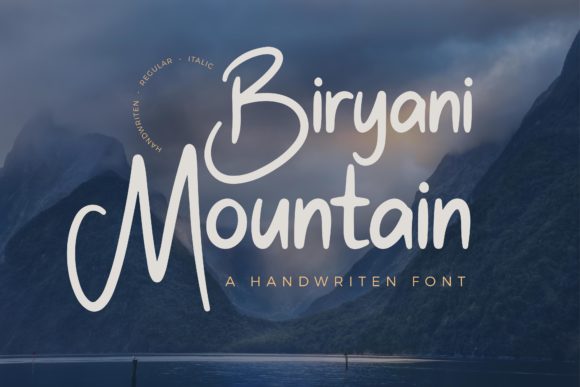
Biryani Mountain Font: The Ultimate Handwritten Font for Designers
Are you tired of using the same old fonts in your designs? Look no further than the Biryani Mountain Font! This beautiful and flexible handwritten font is perfect for a wide variety of designs, from branding and advertising to crafting and DIY projects. In this article, we’ll dive into the features and benefits of Biryani Mountain Font and explore why it’s becoming a favorite among designers and crafters alike.
What is Biryani Mountain Font?
Biryani Mountain Font is a handwritten font that boasts a neat and simple style, making it incredibly versatile. Its clean lines and elegant curves make it perfect for designs that require a touch of sophistication and elegance. Whether you’re creating a logo, brochure, or social media graphic, Biryani Mountain Font is sure to impress.
Key Features of Biryani Mountain Font
- Handwritten style: Biryani Mountain Font has a beautiful, handwritten style that’s perfect for adding a personal touch to your designs.
- Neat and simple: The font’s clean lines and simple style make it easy to read and versatile enough to use in a wide range of designs.
- Flexible: Biryani Mountain Font can be used in a variety of contexts, from formal and professional to casual and playful.
- Elegant curves: The font’s elegant curves add a touch of sophistication and elegance to any design.
Benefits of Using Biryani Mountain Font
So why should you choose Biryani Mountain Font for your next design project? Here are just a few benefits of using this amazing font:
- Adds a personal touch: The handwritten style of Biryani Mountain Font adds a personal touch to your designs, making them stand out from the crowd.
- Improves readability: The font’s clean lines and simple style make it easy to read, even at small sizes.
- Versatile: Biryani Mountain Font can be used in a wide range of designs, from formal and professional to casual and playful.
- Unique: With its elegant curves and handwritten style, Biryani Mountain Font is a unique and refreshing alternative to more traditional fonts.
Who Can Benefit from Biryani Mountain Font?
Biryani Mountain Font is perfect for a wide range of designers and crafters, including:
- Graphic designers: Whether you’re creating logos, brochures, or social media graphics, Biryani Mountain Font is a great choice.
- Crafters: If you’re creating handmade cards, gift tags, or other paper crafts, Biryani Mountain Font is a beautiful and elegant choice.
- Branding experts: If you’re looking for a font that will help your brand stand out, Biryani Mountain Font is a great option.
- DIY enthusiasts: Whether you’re creating signs, banners, or other DIY projects, Biryani Mountain Font is a versatile and easy-to-use choice.
How to Use Biryani Mountain Font
Using Biryani Mountain Font is easy! Here are a few tips to get you started:
- Pair it with other fonts: Biryani Mountain Font pairs well with a variety of other fonts, including sans-serif and serif fonts.
- Experiment with colors: The font’s elegant curves and handwritten style look great in a variety of colors, from bold and bright to soft and pastel.
- Use it in a variety of contexts: Biryani Mountain Font can be used in a wide range of designs, from formal and professional to casual and playful.
In conclusion, Biryani Mountain Font is a beautiful and flexible handwritten font that’s perfect for a wide variety of designs. With its neat and simple style, elegant curves, and versatile nature, it’s no wonder that Biryani Mountain Font is becoming a favorite among designers and crafters alike. Whether you’re creating logos, brochures, or handmade crafts, Biryani Mountain Font is a great choice. So why not give it a try and see the difference it can make in your designs?